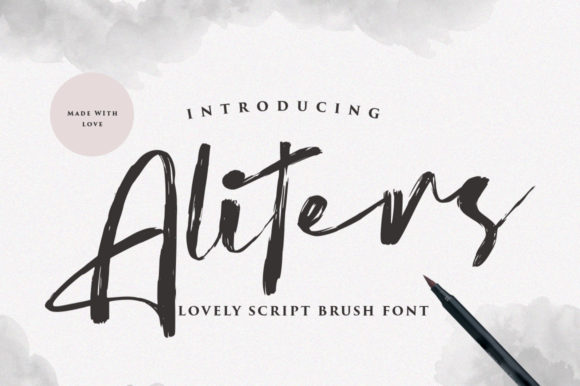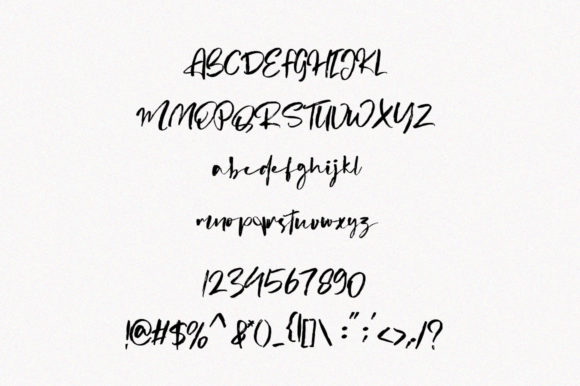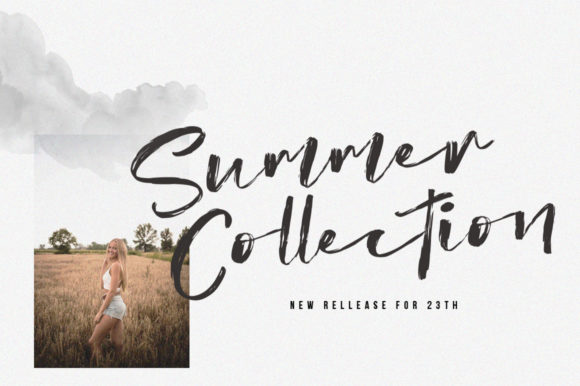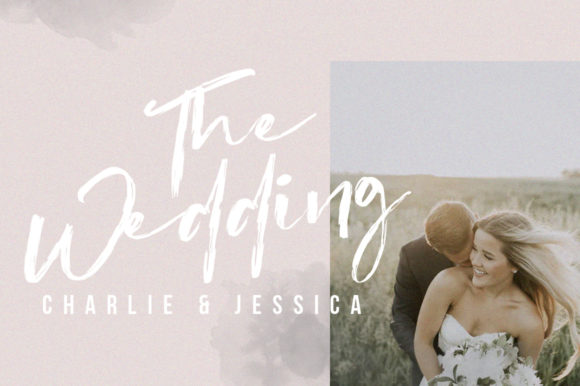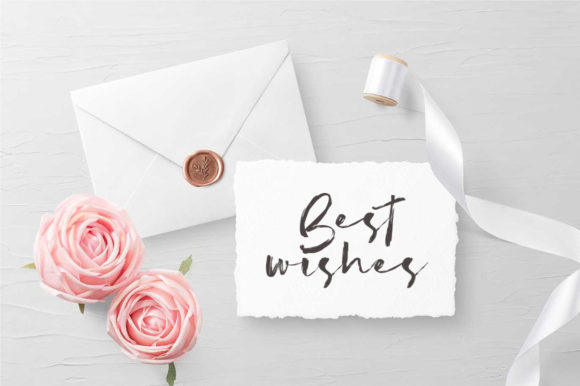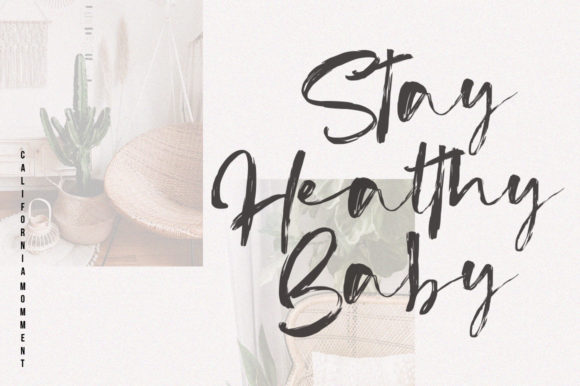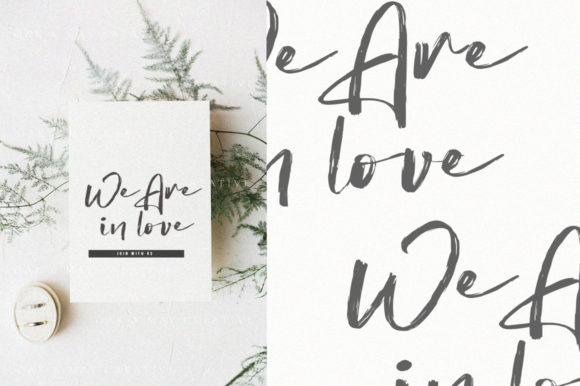
Aliters Font
About Aliters Font
Aliters is a beautiful handwritten font, created with the help of a unique brush pen. Fall in love with its incredibly versatile style and use it to create gorgeous wedding invitations, beautiful stationary art, eye-catching social media posts, and much more!